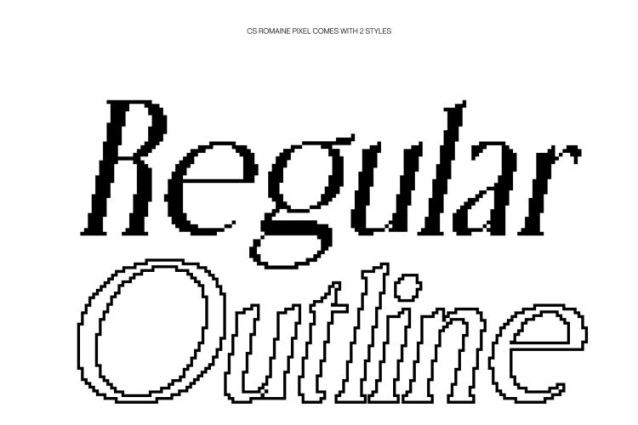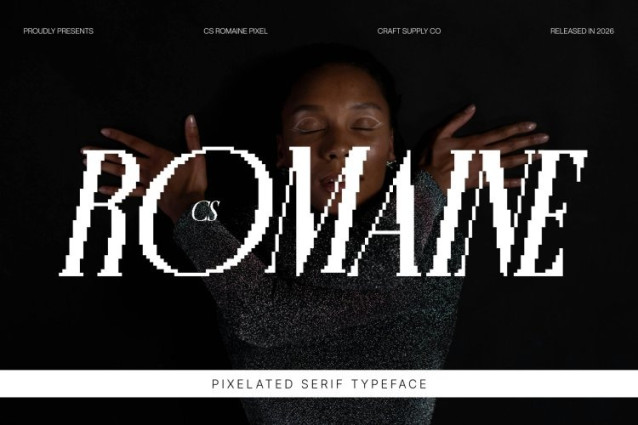
CS Romaine Pixel Font This is an elegant serif font inspired by the grace and balance of Renaissance typography, reinterpreted through a precise pixel-based structure. Its refined curves and harmonious proportions translate classical beauty into a crisp, digital form, creating a typeface that feels timeless yet perfectly suited for modern screens and retro-tech visuals.
Renaissance Influence with Digital Pixel Precision
Rooted in Renaissance letterform principles, embodies tradition, balance, and refinement while embracing pixel clarity. Each serif and curve is carefully adapted into a structured pixel grid, preserving historical elegance while introducing a distinctly digital rhythm. This fusion makes it ideal for editorial layouts, digital publications, and branding that seek heritage with a modern, screen-ready edge.
High-End Aesthetic with Elegant Pixel Character
With its poised shapes and controlled contrast, delivers a luxurious visual presence enhanced by pixel precision. The font communicates sophistication, authority, and artistry while its pixel construction adds a subtle retro-digital charm perfect for premium branding, upscale packaging, refined interfaces, and elegant digital identities.
Versatile, Timeless, and Screen-Optimized
Designed to perform beautifully across both digital and print media, ensures clarity without sacrificing classic elegance. Whether used for headlines, logos, editorial typography, or refined branding accents, it adds a distinguished, pixel-crafted character that elevates designs with timeless sophistication and modern technological appeal.